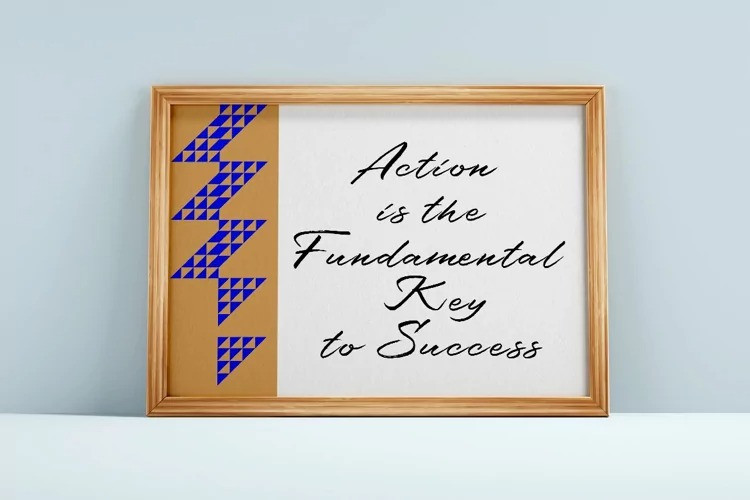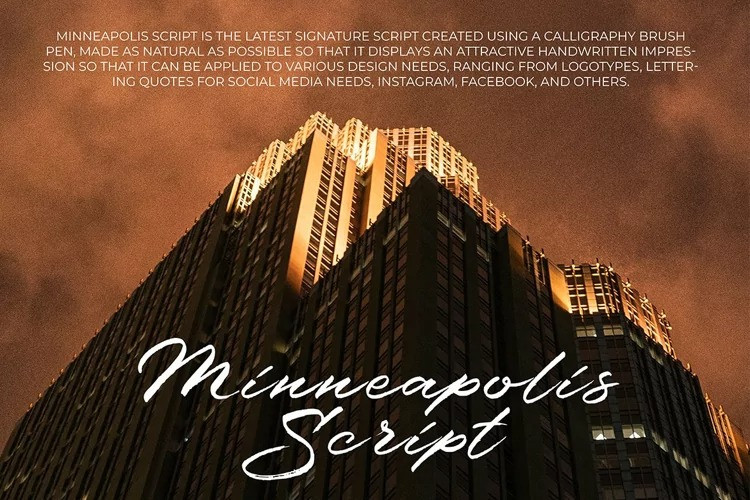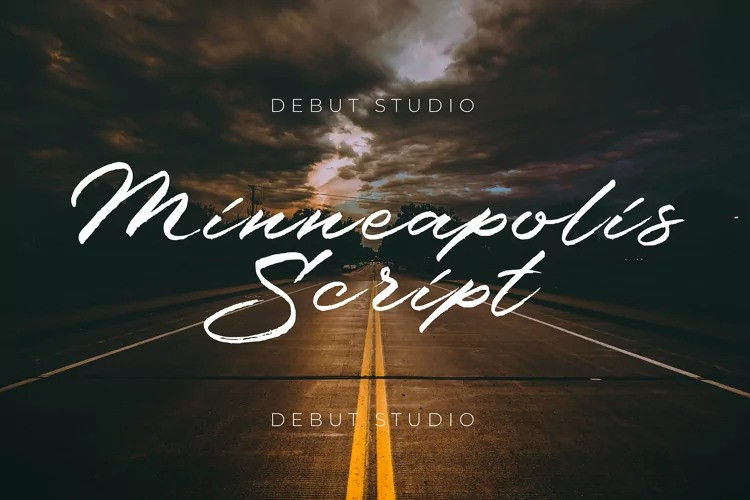
Minneapolis Script Font
Minneapolis Script Font is The latest Signature Script created using a calligraphy brush pen, made as natural as possible so that it displays an attractive handwritten impression so that it can be applied to various design needs, ranging from logotypes, lettering quotes for social media needs, Instagram, Facebook, and others. Suitable used for wedding invitation designs, besides that the this font is also very suitable to be applied to the media of t-shirts and other fashion needs.
Minneapolis Script will be very helpful in your designing activities that require a natural, original hand-made brush font.